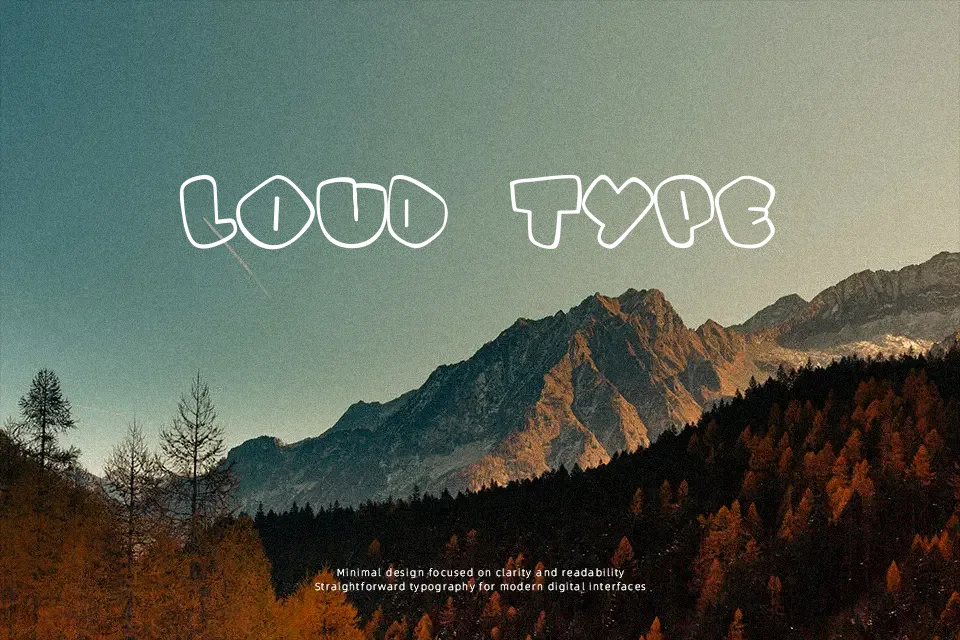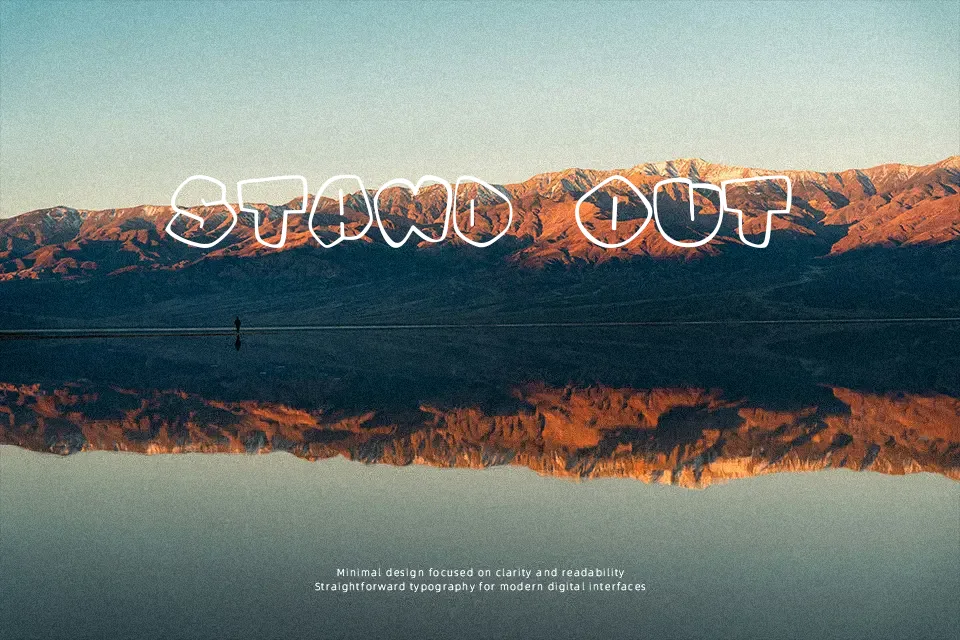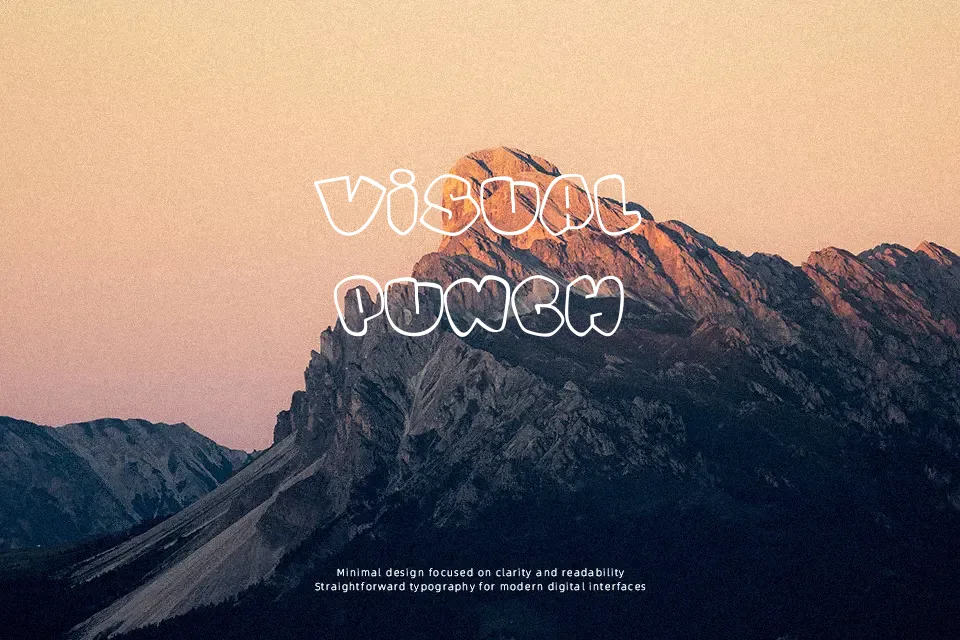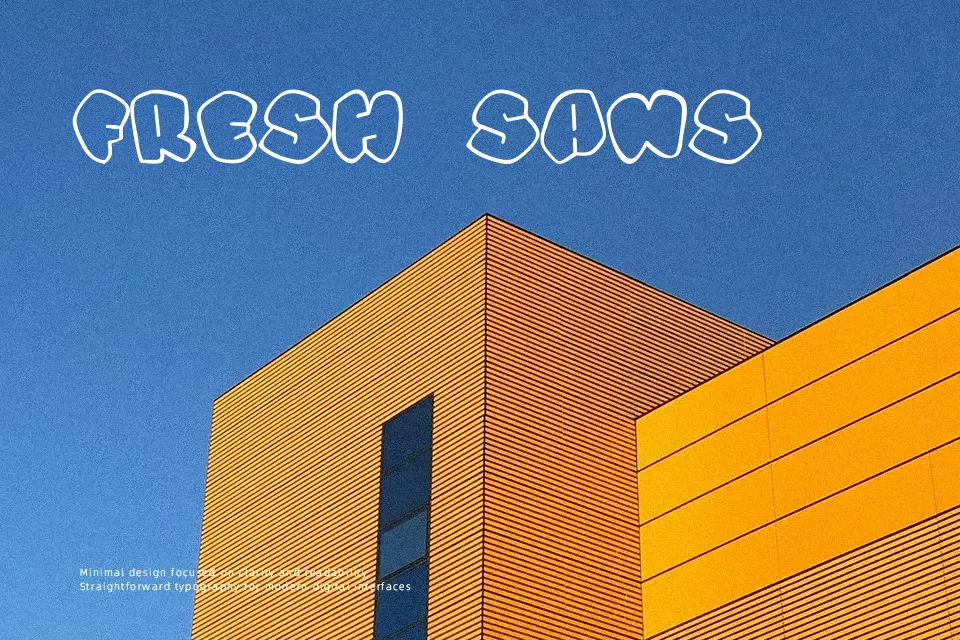
Alpha Street Font
Designed by Carlos Silva
Starting with wide, rounded letters and bold, even strokes, Alpha Street reads as a fun, cartoon-inspired display face with a clearly hand-drawn attitude . Its shapes are simple and slightly exaggerated, giving strong presence in large sizes while keeping a soft, friendly edge. Spacing is moderately tight, which helps headlines, badges, and short phrases feel compact and energetic. This style works well for children’s event posters, playful logo wordmarks, and social media graphics that need an informal voice. However, the informal forms and lack of fine detailing make it unsuitable for long paragraphs or formal corporate contexts. It works best when you keep copy short and impactful, and avoid small point sizes where its chunky structure can look clumsy .
kids event posters
playful logo wordmarks
social media promo graphics
formal corporate reports
small-size UI labels
serious editorial layouts
Perfect for gaming, kids, and logo, with a artistic and cartoon style.